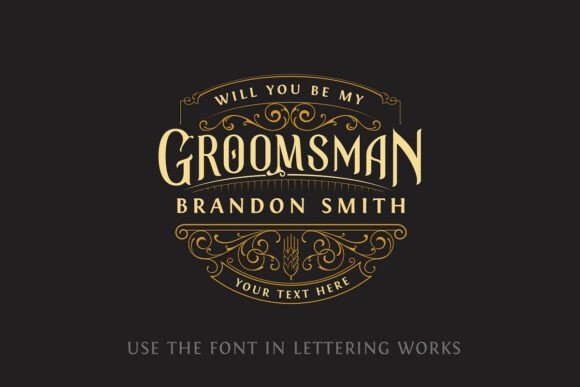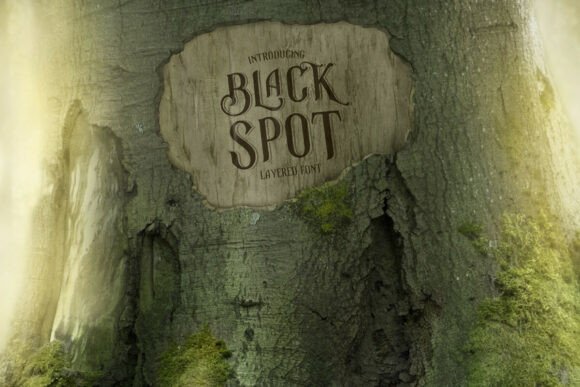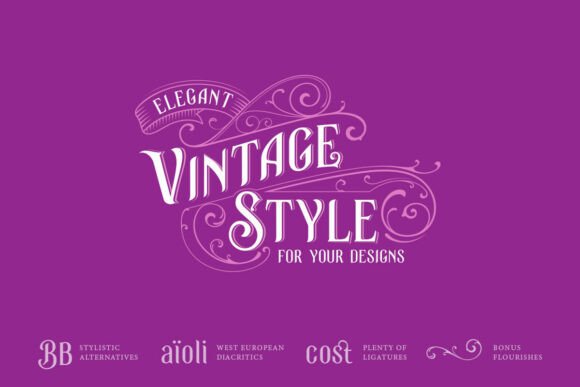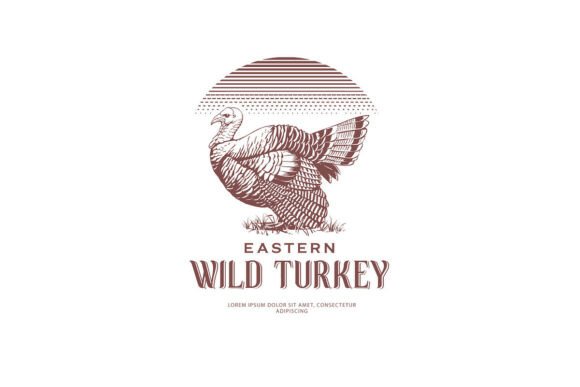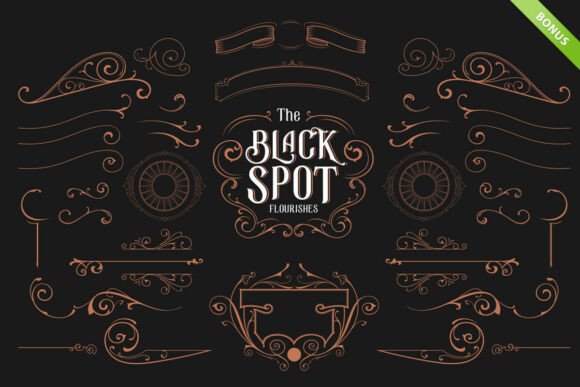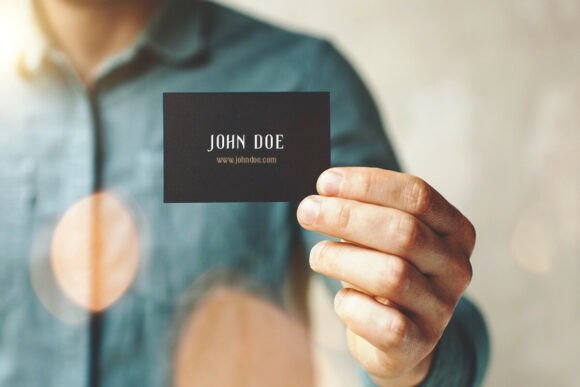
Introduction to Black Spot Font
Imagine yourself amidst a cluttered design studio, surrounded by sketches, paint swatches, and half-finished projects. The perfect font can be the missing piece that elevates your creative vision, transporting your audience to a world of sophistication and elegance. For designers seeking that elusive touch of luxury, the Black Spot Font is an unparalleled design resource.
With its ornate, curvy lines and Victorian-inspired calligraphy, the Black Spot Font adds a touch of refinement to any project. This versatile two-layer display font is perfect for whiskey and beer labels, wine packaging, and vintage logo design. Its layered construction and decorative flourishes create a sense of depth and dimension, ideal for premium product packaging, badges, and tattoo designs.
Key Features of Black Spot Font
- High-quality design resource with a unique, creative aesthetic.
- Features a transparent background, making it ideal for use on a variety of backgrounds.
- Includes multiple font styles and weights, allowing for versatility in creative projects.
- Perfect for use in graphic design, digital art, and other creative projects that require a unique and eye-catching font.
Honest Review: Black Spot Font
As a designer, I’m always on the lookout for high-quality design resources that can elevate my creative projects. The Black Spot Font is one such resource that caught my attention.
Here’s what works well:
- ✨ Unique aesthetic: The font has a distinct, hand-drawn feel that adds a touch of personality to any design project.
- ✨ High-quality glyphs: The font includes a wide range of glyphs, including Latin, Cyrillic, and Greek alphabets, making it a versatile option for designers.
- ⚠️ Limited customization options: The font doesn’t offer a lot of customization options, which may limit its use in certain design projects.
- ⚠️ Transparent background: The font has a transparent background, which can make it difficult to use in designs with complex backgrounds.
Overall, the Black Spot Font is a solid choice for designers looking for a unique and high-quality font for their creative projects. While it may have some limitations, its free download and unique aesthetic make it a worthwhile resource to explore.
Introduction to Black Spot Font
The Black Spot Font is a unique design resource ideal for creative projects that require a touch of elegance and sophistication. This high-quality font features a transparent background, making it perfect for overlays, text effects, and other design elements.
To get the most out of the Black Spot Font, experiment with different font sizes, colors, and effects. Combine it with other design elements to create unique and eye-catching visual content.
The Black Spot Font is ideal for:
- Branding and identity design
- Advertising and marketing materials
- Wedding invitations and event design
- Editorial and publishing design